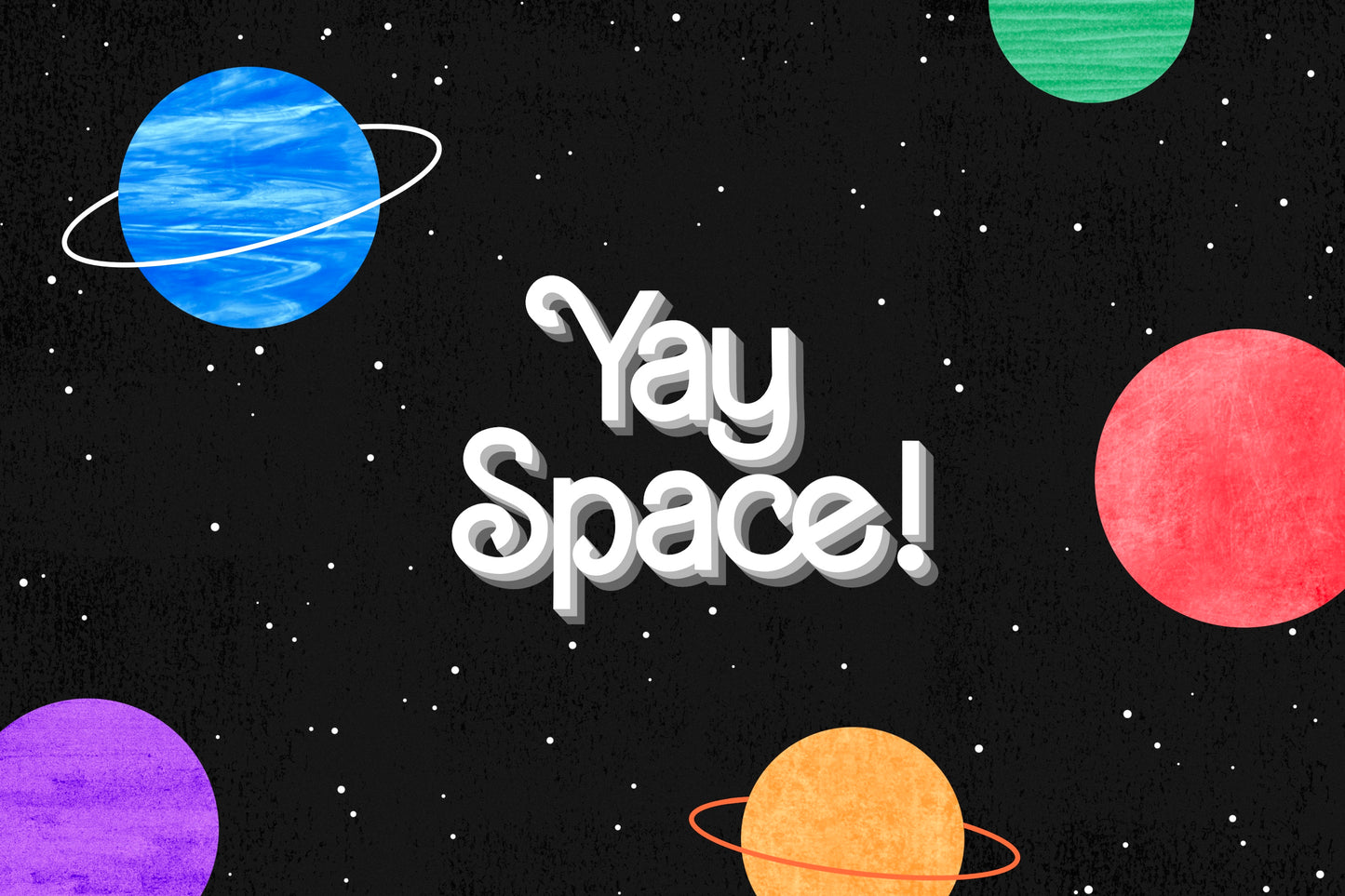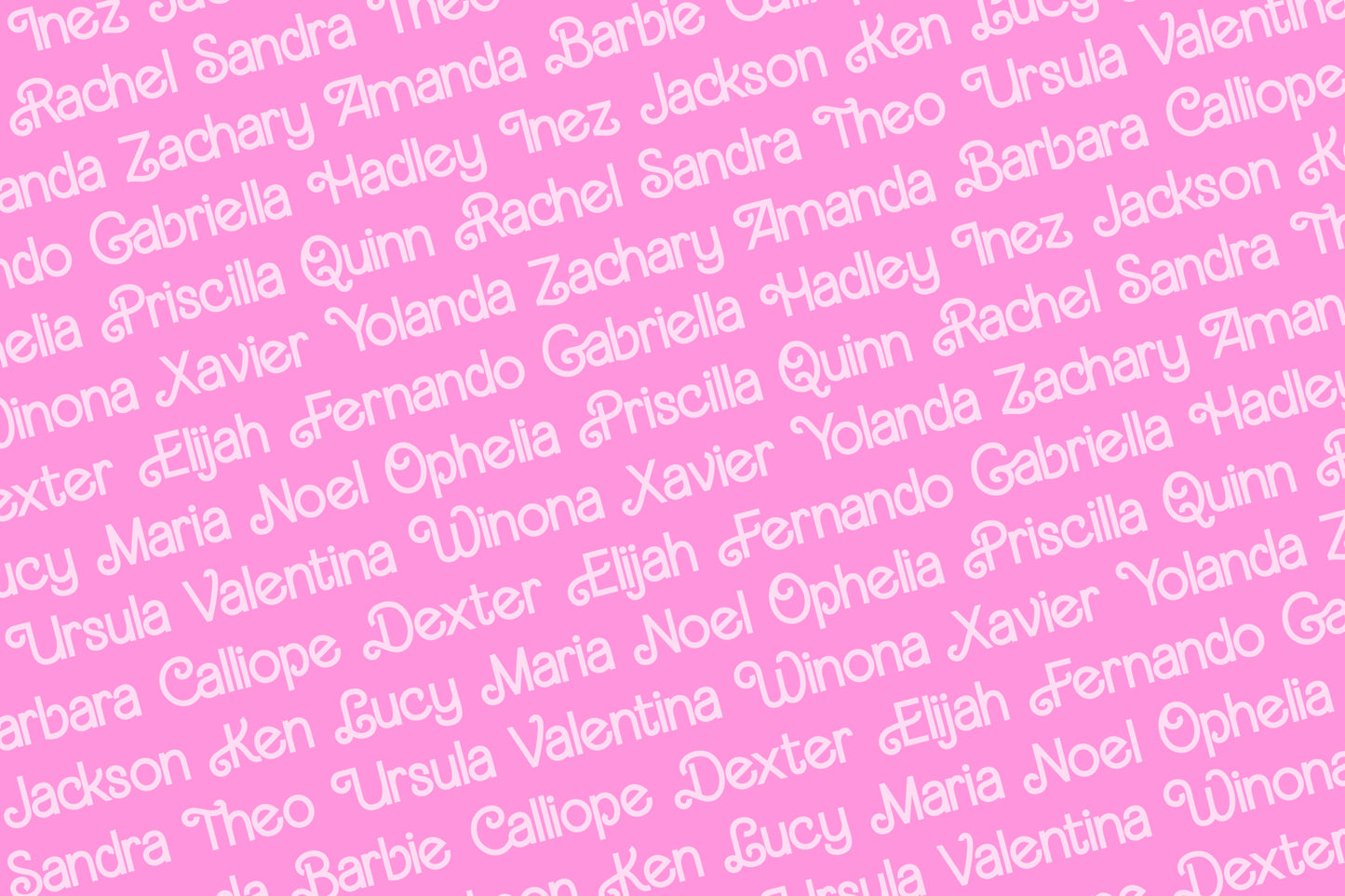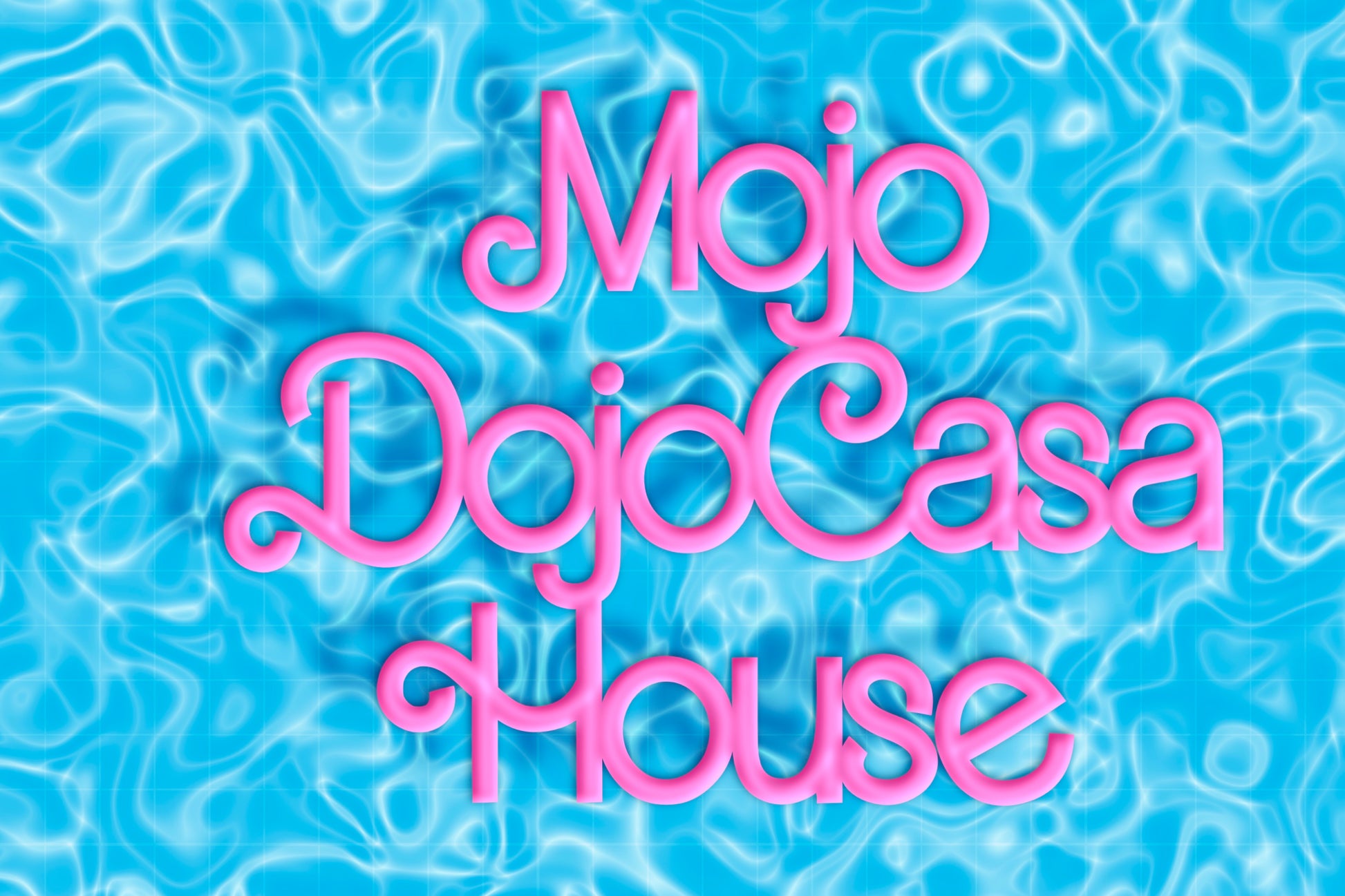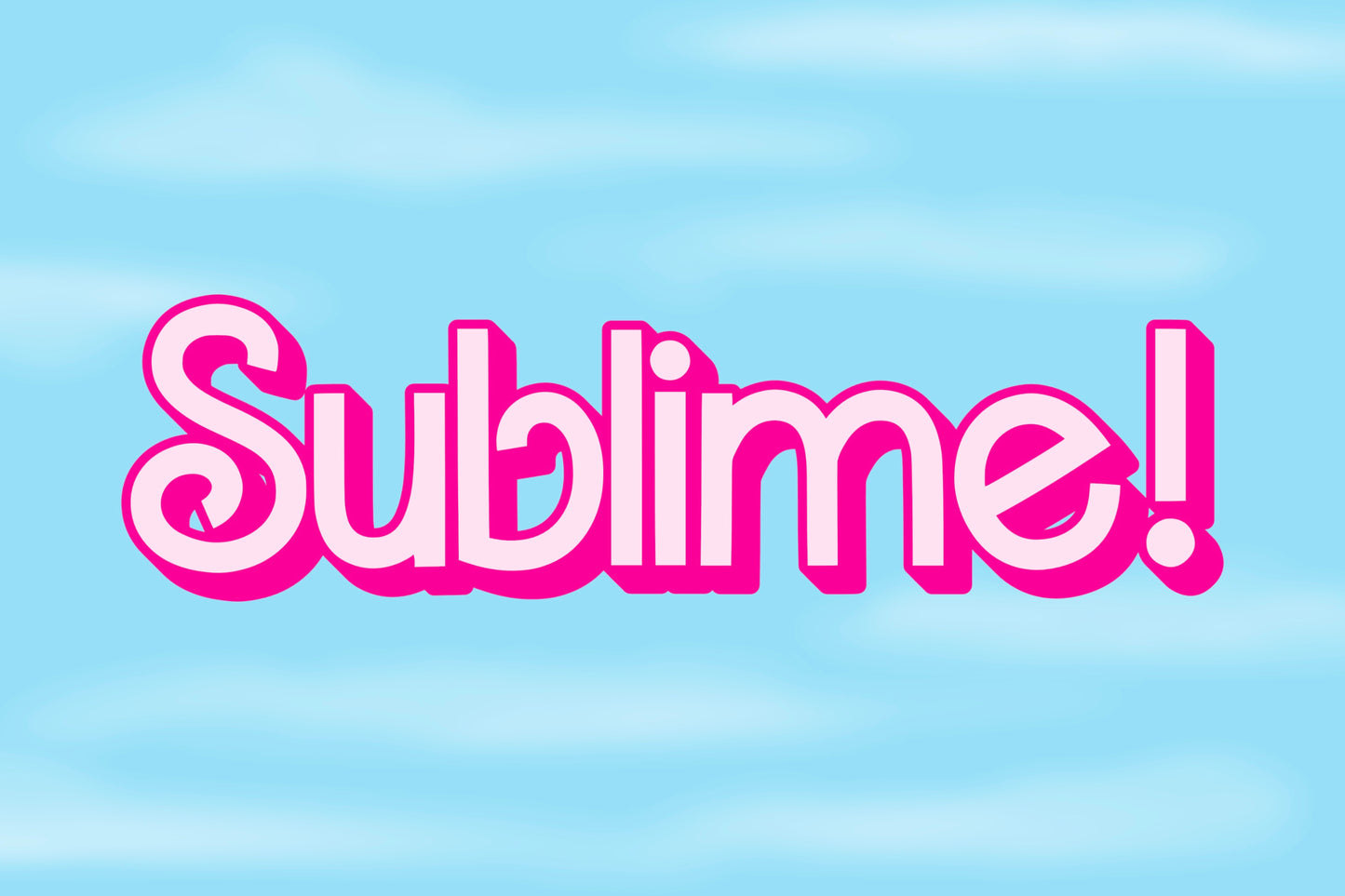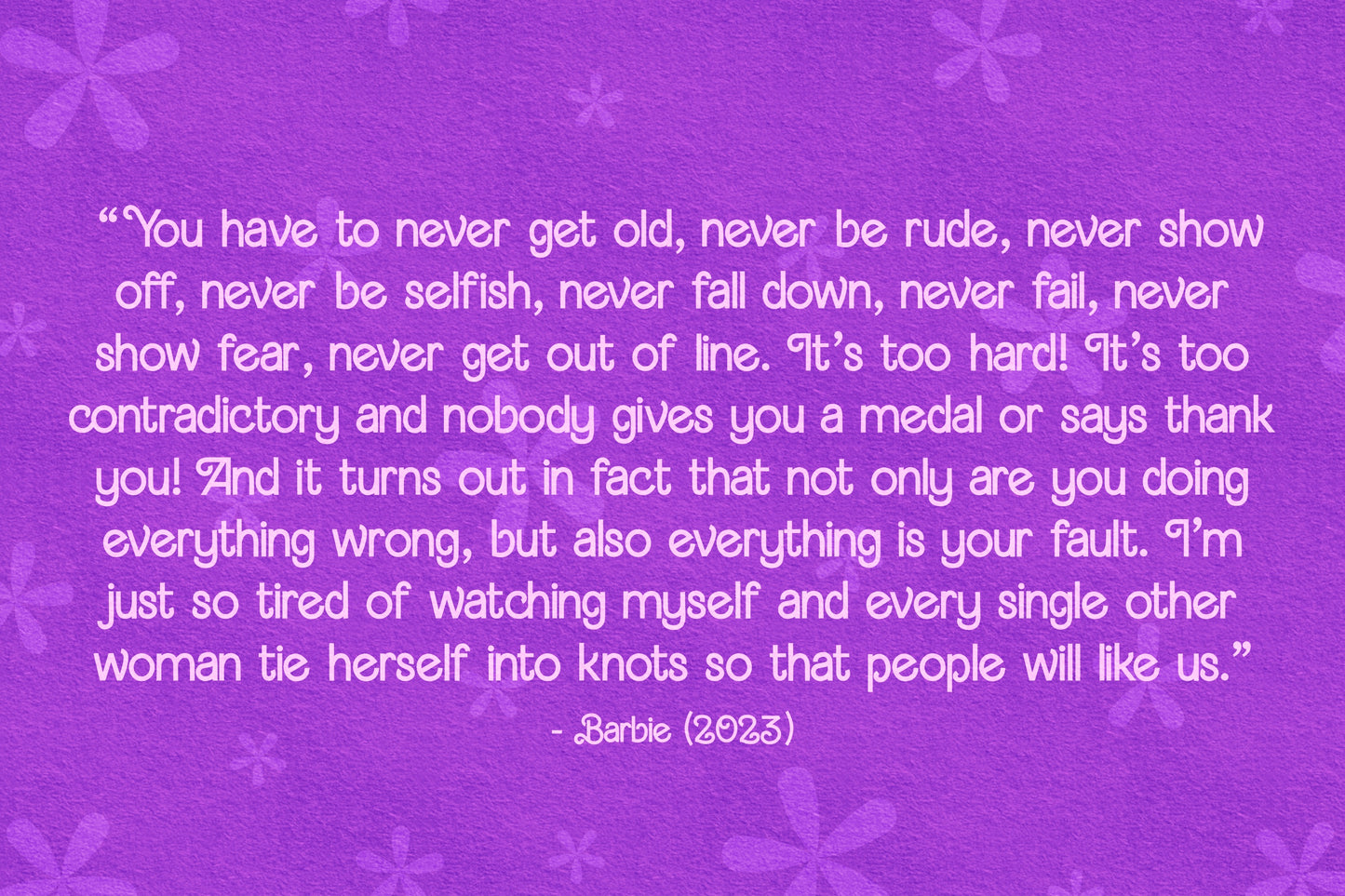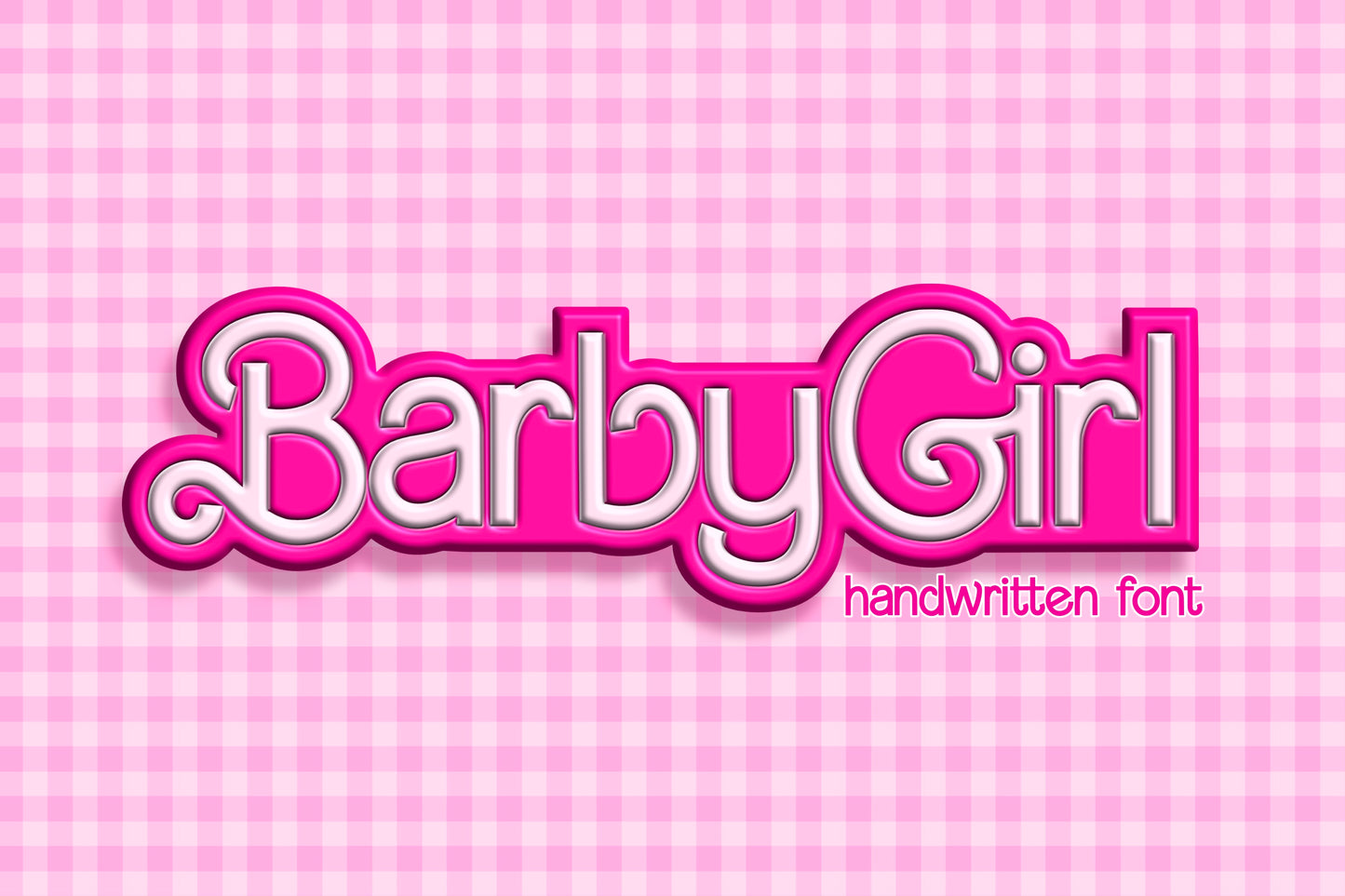
BarbyGirl Hand Drawn Font
Introducing the BarbyGirl handwritten/hand drawn font. This unique, retro, swirly font with squared off corners and edges will add a cute, handmade touch to your design! This versatile font is great for casual designs, playful occasions, stickers, posters, t-shirts, magazines, logos and more!